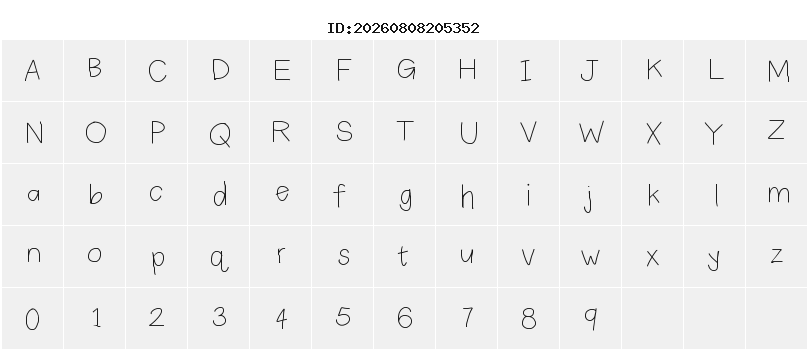
About PlainPrint.ttf
PlainPrint.ttf is a modern, elegant sans-serif font designed for ultimate readability and visual harmony. Perfect for branding, headlines, web design, and print materials.